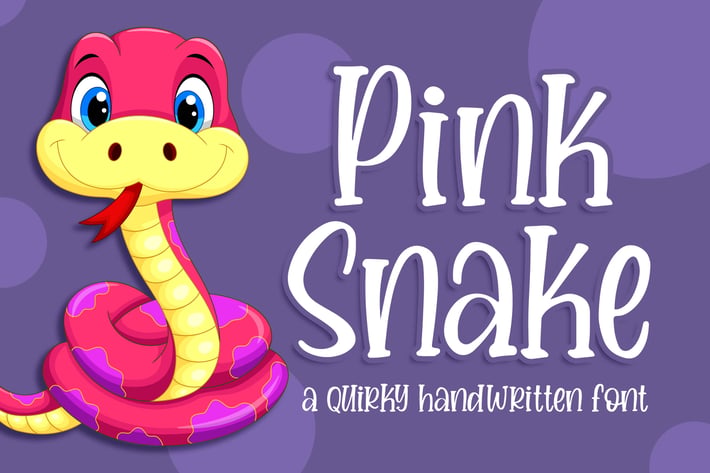
Pink Snake - a Quirky Handwritten Font
Introducing of our new product the name is Pink Snake a Quirky Handwritten Font. Pink Snake inspired by modern calligraphy this font is a fun theme very good for poster, food, wedding, branding etc